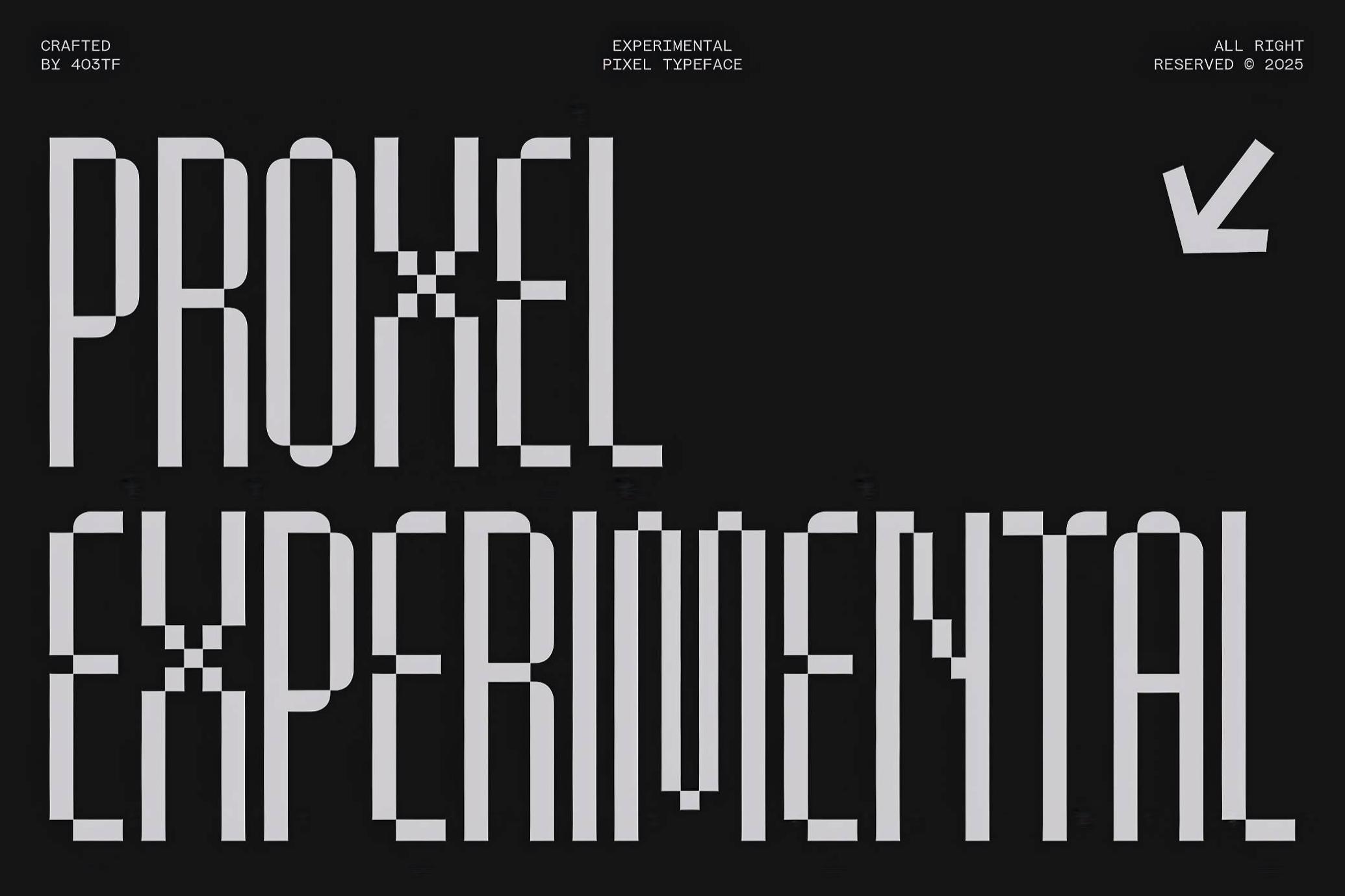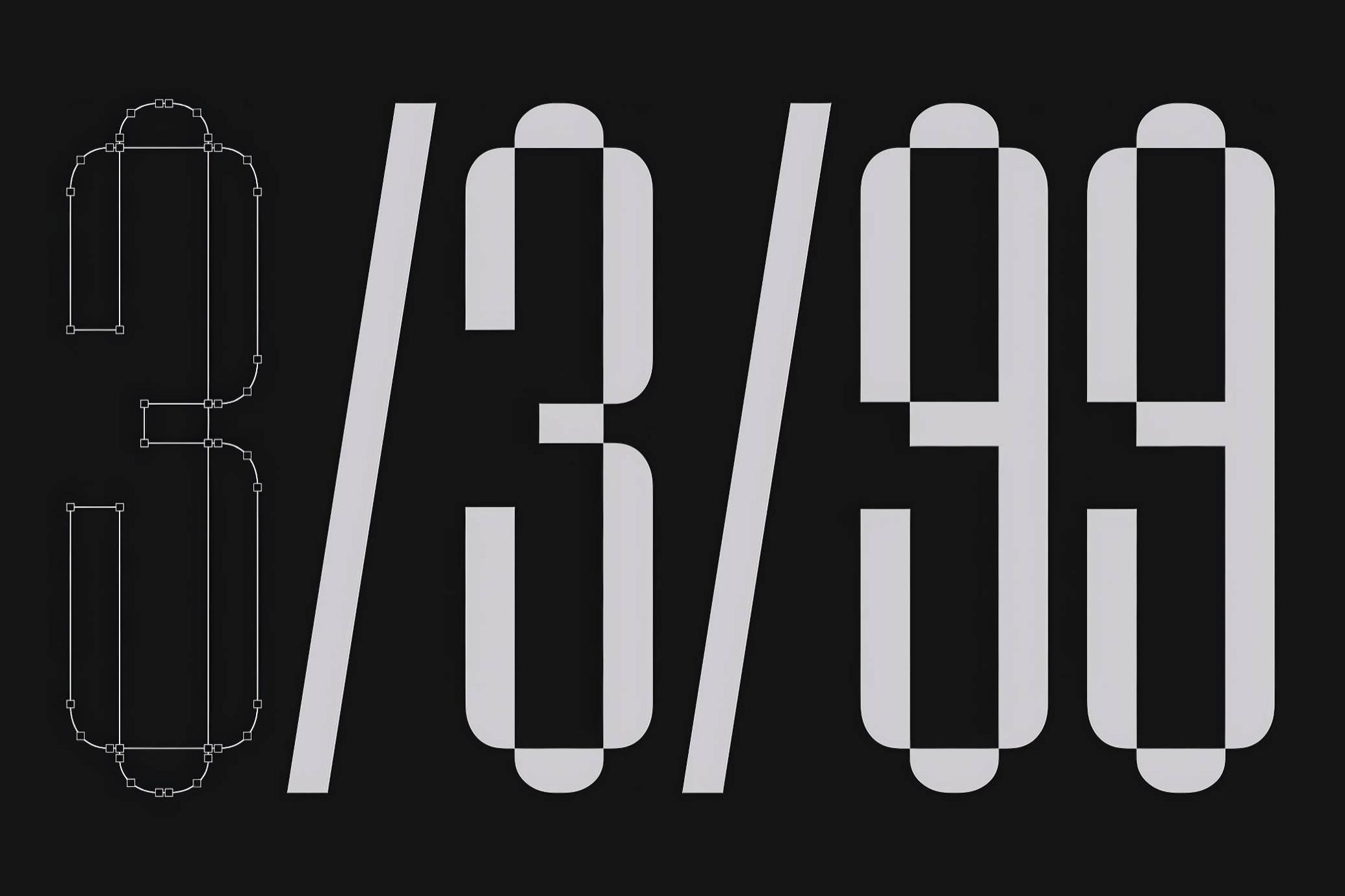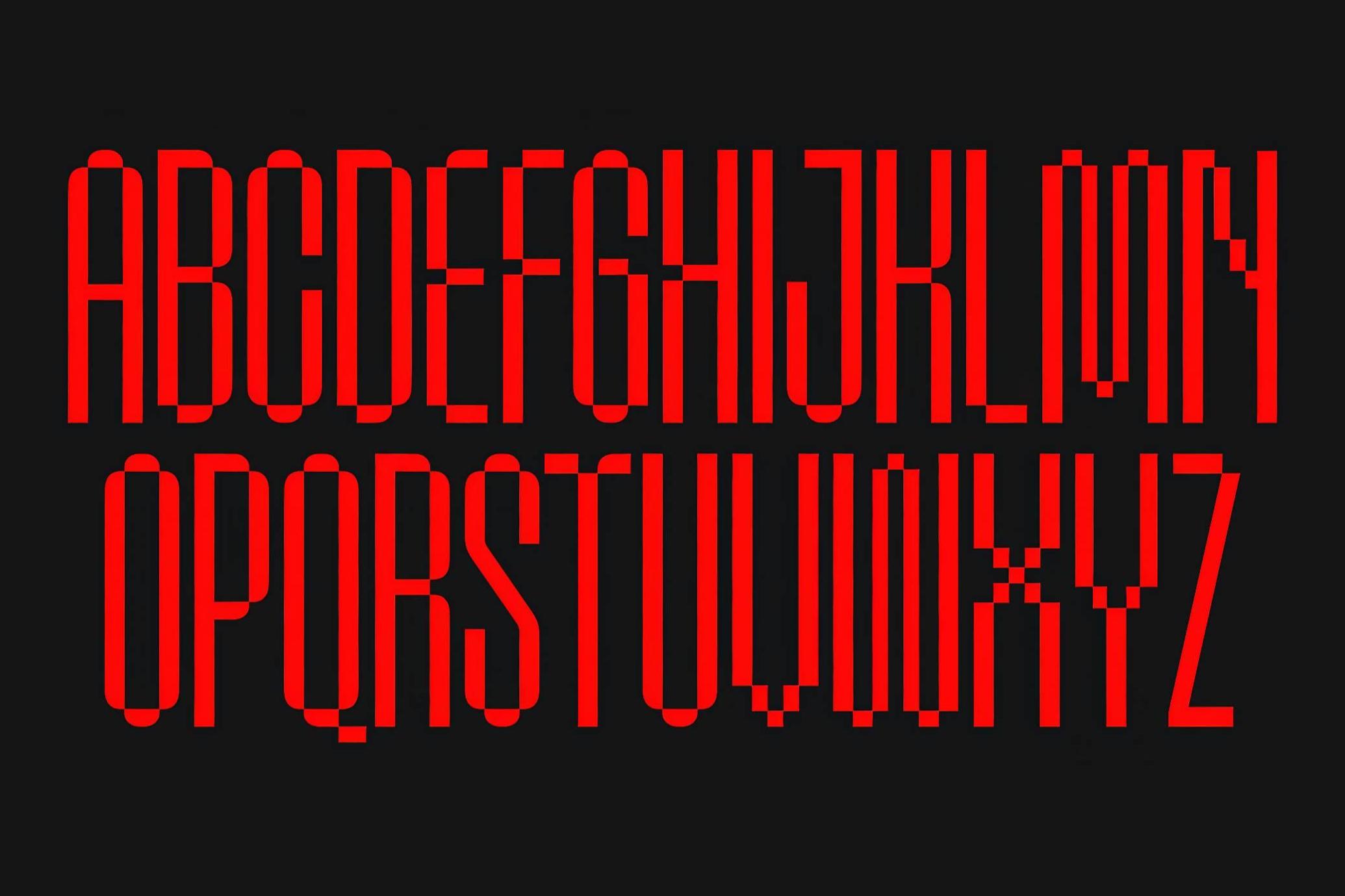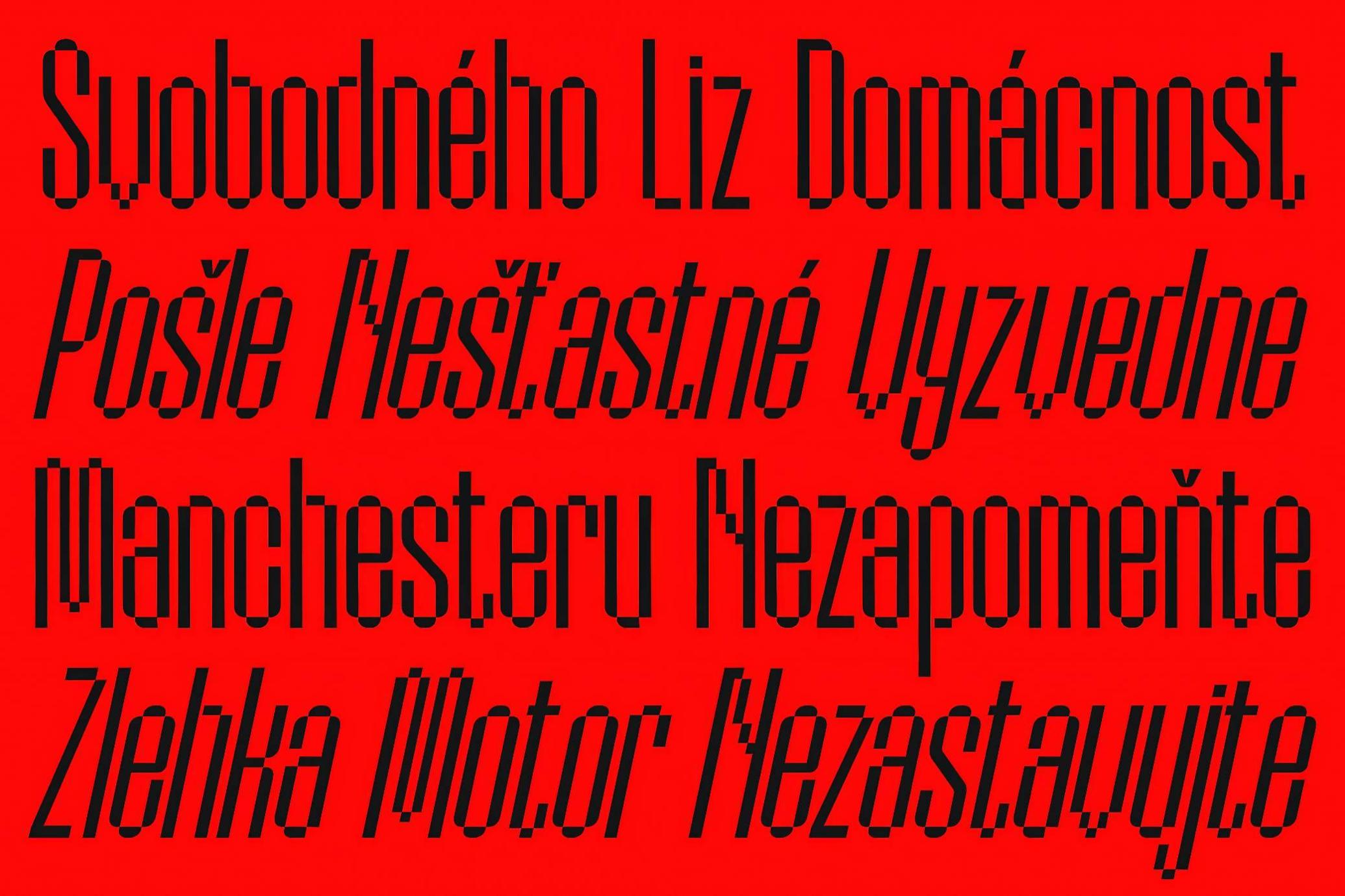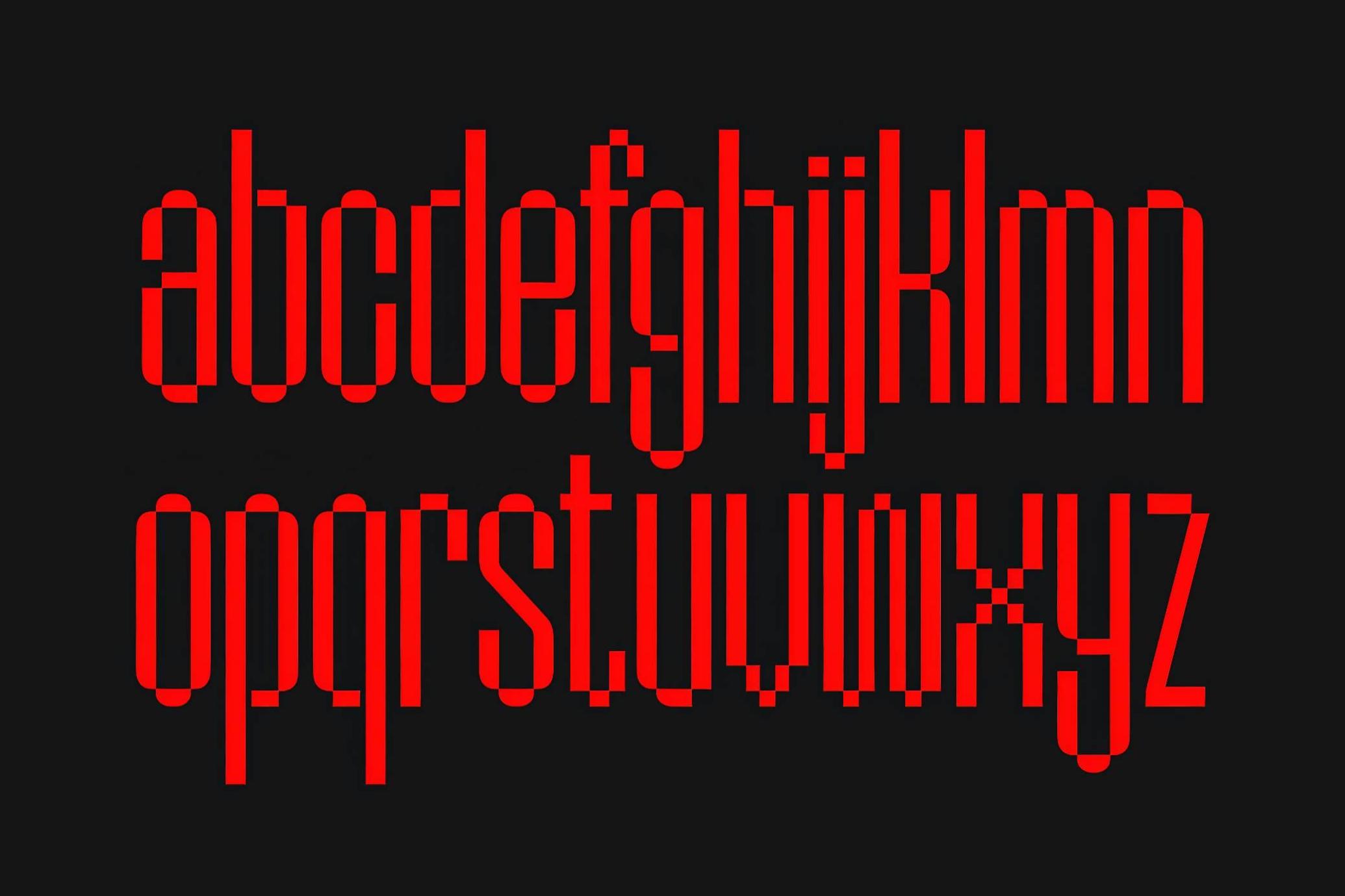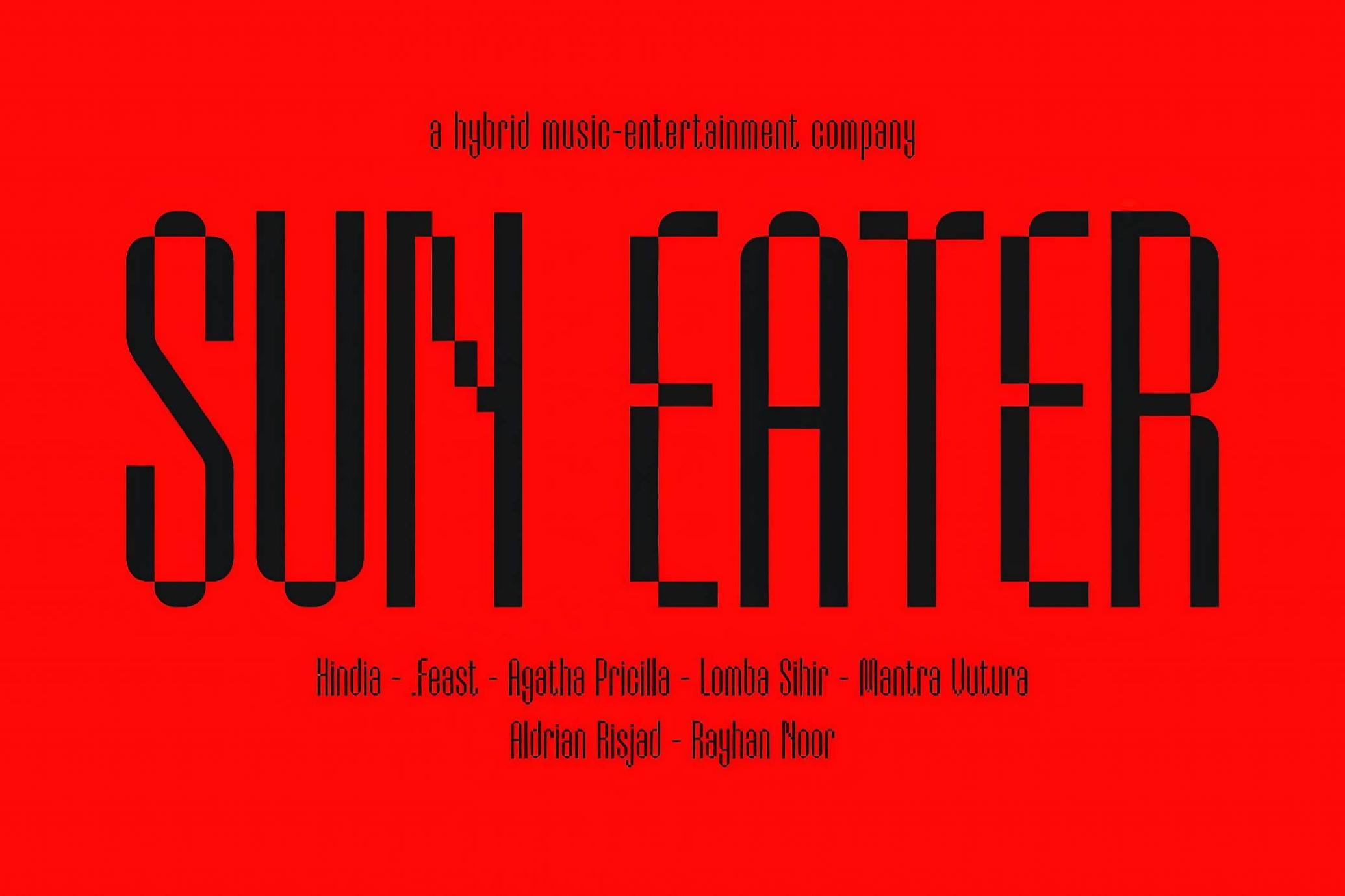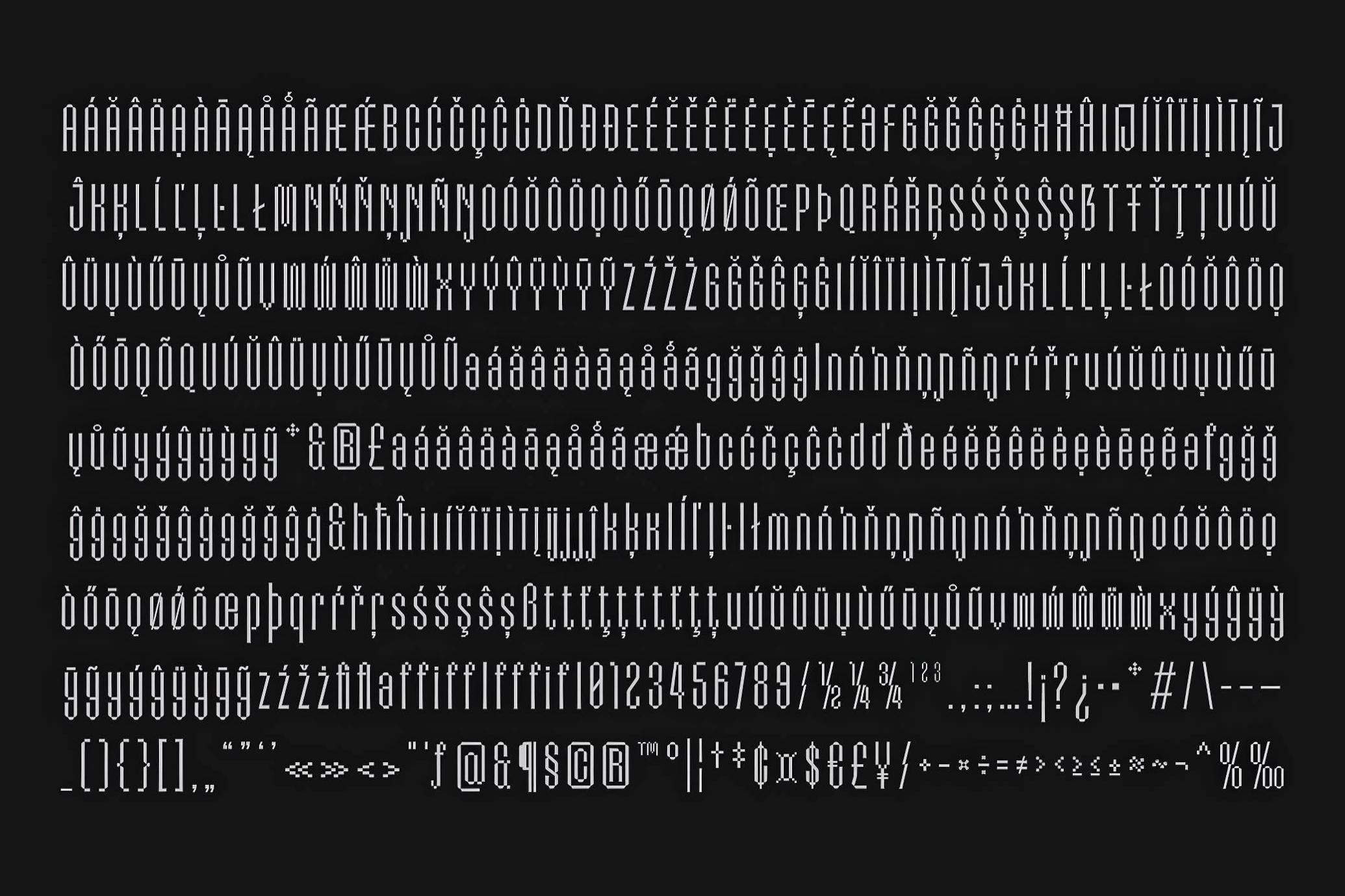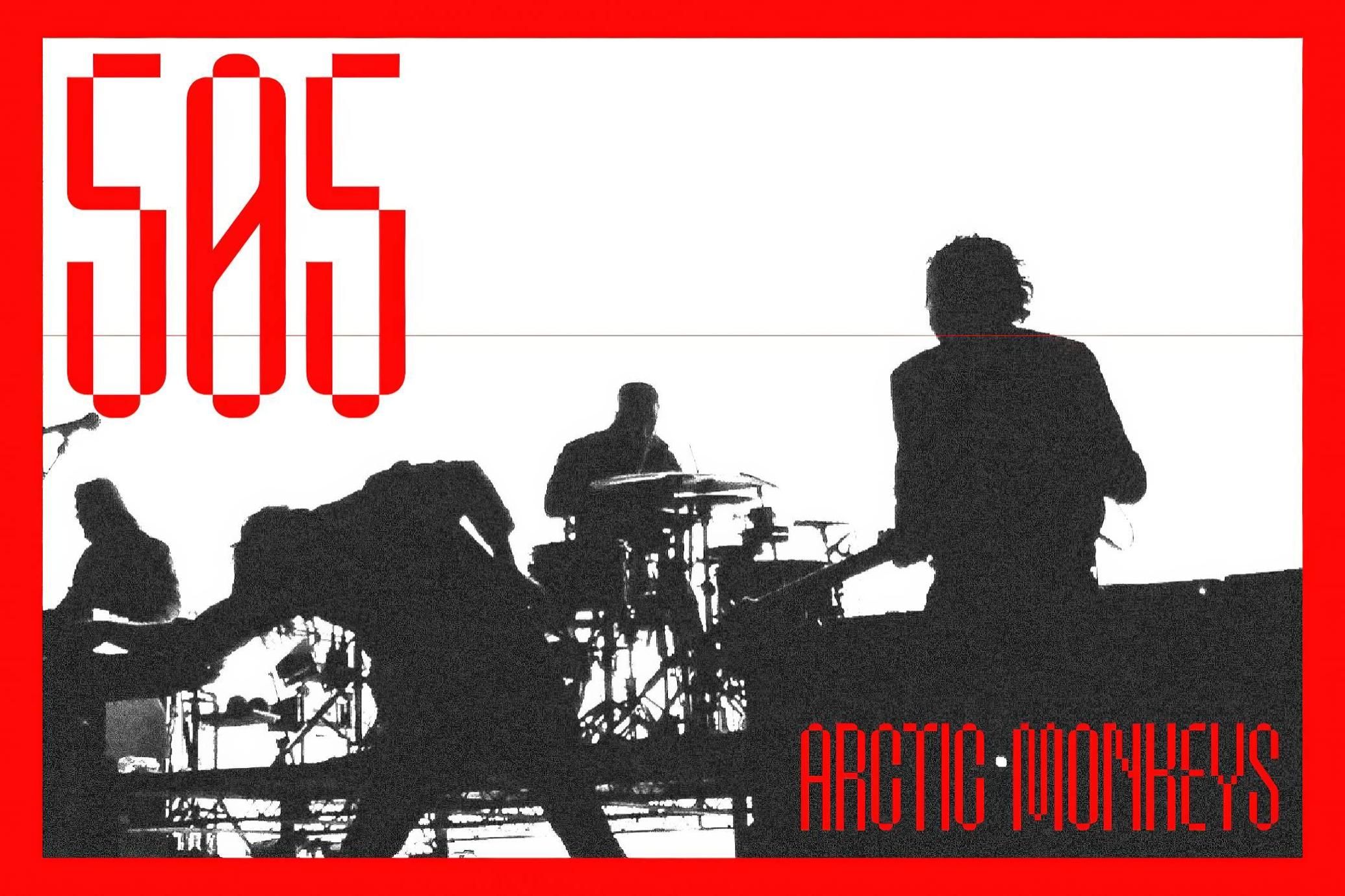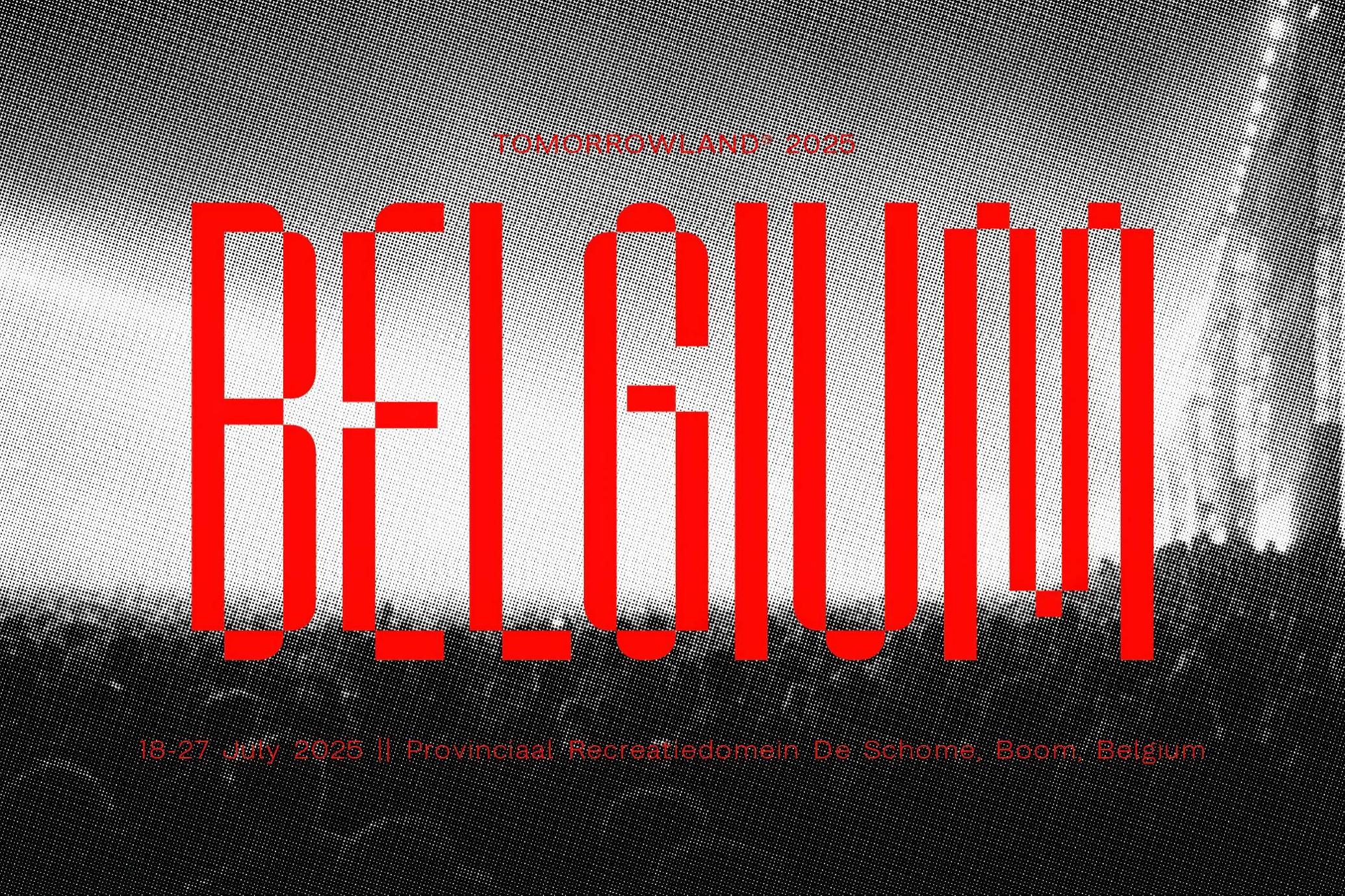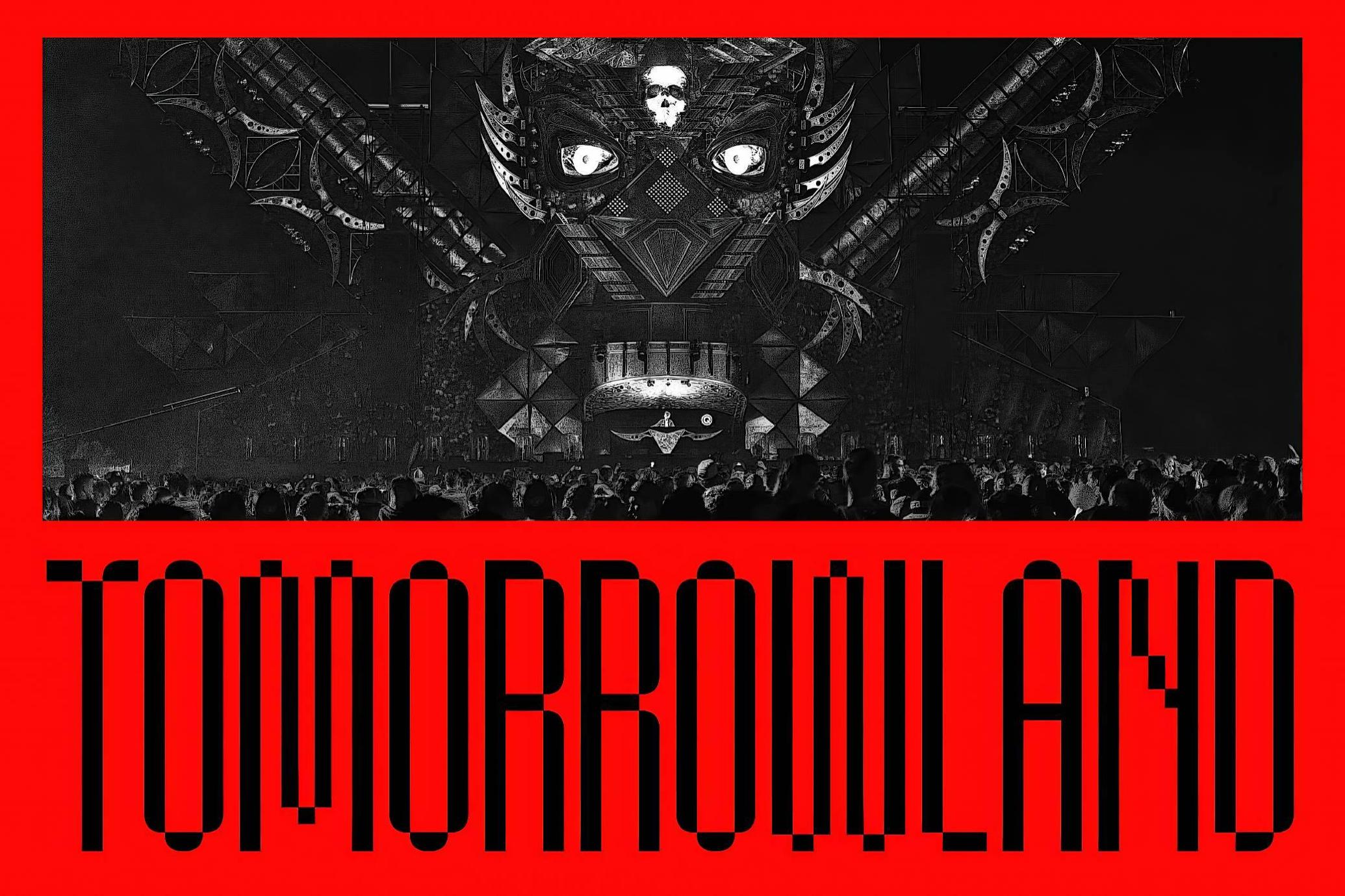
403 Proxel Pixel Typeface
403 Proxel isn’t here to blend in. It’s here to reorganize your visual regime one pixel at a time. With its long limbs, militant precision, and condensed silhouette, this typeface looks like it was hand-delivered by a courier from a parallel timeline where cybernetic poets design dystopian fashion zines. The italics don’t slant—they lunge. The terminals don’t soften—they compute. It’s geometry with an attitude problem, and we’re absolutely fine with that.
Technically, it’s a sans-serif. Practically, it’s a typographic manifesto. Multilingual support? Of course. Accents, symbols, commands for the motherboard — sure, why not. Best used on posters, album covers, rogue manifestos, and speculative software interfaces. Proxel thrives at large sizes where every jagged nuance can shout properly. Just don’t use it for wedding invites unless you’re marrying a machine.